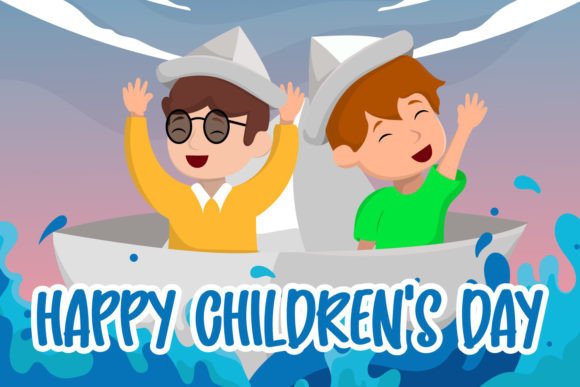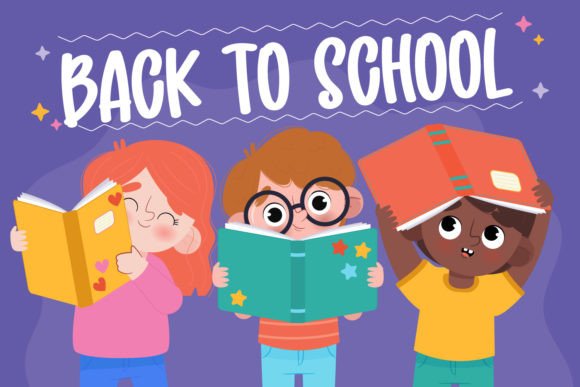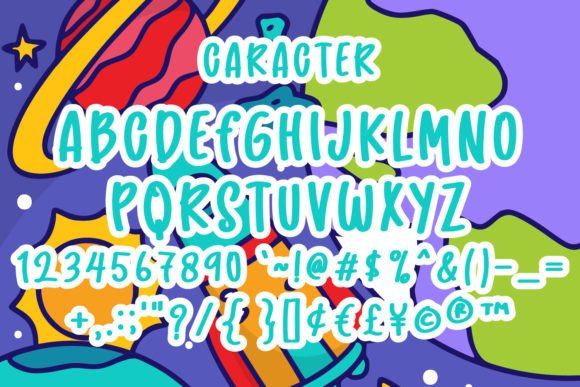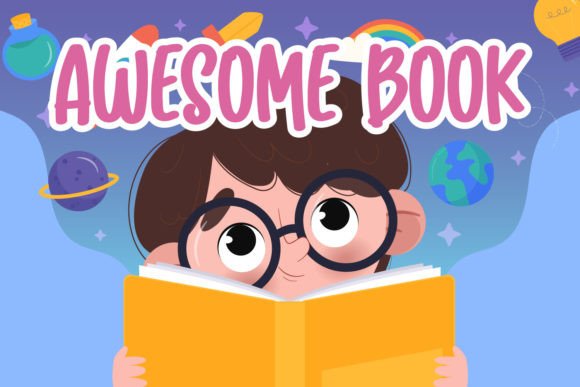
The Perfect Font for Your Next Creative Project
Do you remember the thrill of opening a blank notebook and letting your imagination run wild? For many of us, this simple act sparks a sense of excitement and possibility. As designers, we’re constantly on the lookout for the perfect tools to bring our ideas to life, and that’s where the Dream Book Font comes in.
This charming display font is designed to evoke a sense of playfulness and authenticity, making it the perfect choice for any children’s activity or school project. Its friendly and approachable style is sure to delight kids and adults alike, while its versatility makes it a valuable addition to any designer’s toolkit.
Whether you’re working on a children’s book, a website for a family business, or a social media campaign for a kids’ brand, the Dream Book Font is a must-have. Its unique charm and character make it a standout choice for designers looking to add a touch of whimsy and personality to their projects.
Dream Book Font Key Features
- Font Family: Dream Book Font is a high-quality, hand-drawn font designed for creative projects. It features 2 font styles: Regular and Bold.
- Character Set: The font includes a wide range of characters, including uppercase and lowercase letters, numbers, punctuation marks, and special characters.
- Unique Characteristics: Dream Book Font features a unique, dreamy quality, with intricate details and subtle texture, making it perfect for creative projects that require a touch of whimsy and elegance.
Dream Book Font Review
As a designer, I was excited to dive into the Dream Book Font and see what it had to offer. Overall, I was pleased with the result, and here’s why:
- ✨ The font’s elegance and sophistication are perfect for high-end designs. It’s a great choice for luxury brands, fashion, or beauty industries.
- ✨ The Dream Book Font is highly customizable, allowing for a wide range of font sizes, styles, and colors. This flexibility makes it easy to adapt to different design projects.
- ✨ The font’s legibility is excellent, making it a great choice for body text, headings, or even titles.
However, there are a few limitations I encountered:
- ⚠️ The font’s compatibility with older systems is limited, which might be a concern for designers who need to cater to older audiences or clients.
Overall, I’d give the Dream Book Font 4 out of 5 stars. While it’s not perfect, its elegance, customizability, and legibility make it a great choice for high-end designs. With a bit more attention to compatibility and pricing, it could be a top contender in the font market.
To get the most out of the Dream Book Font, try:
- Using it in combination with other creative fonts for a unique look.
- Experimenting with different font sizes and styles to create visual interest.
- Using it in a layout with plenty of negative space to let the font shine.
The Dream Book Font is perfect for:
- Blog posts and articles with a creative, whimsical tone.
- Social media graphics and
Alternatives to Dream Book Font for Designers
Playfair Display is a luxurious, high-end serif font that exudes elegance and sophistication. It is ideal for use in high-end branding, advertising, and editorial design projects where a touch of refinement is required. Compared to Dream Book Font, Playfair Display has a more dramatic flair and is often used in titles and headlines.
Great Vibes is a beautiful, elegant script font that is reminiscent of handwritten text. It is perfect for use in invitations, wedding stationery, and other creative projects where a personal touch is desired. Unlike Dream Book Font, Great Vibes has a more fluid, cursive feel that adds a touch of whimsy to designs.